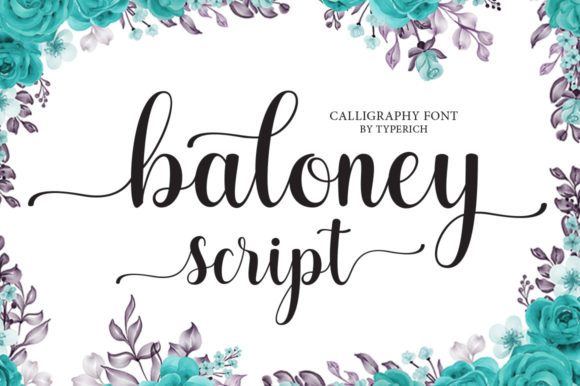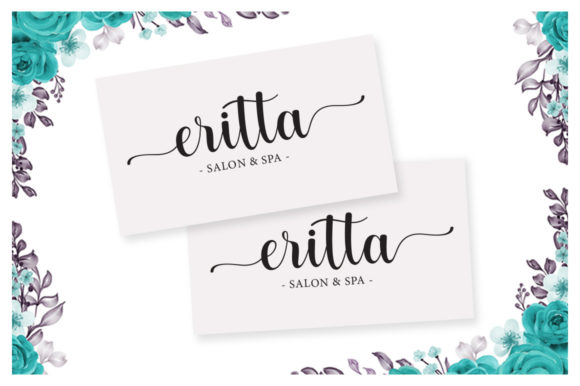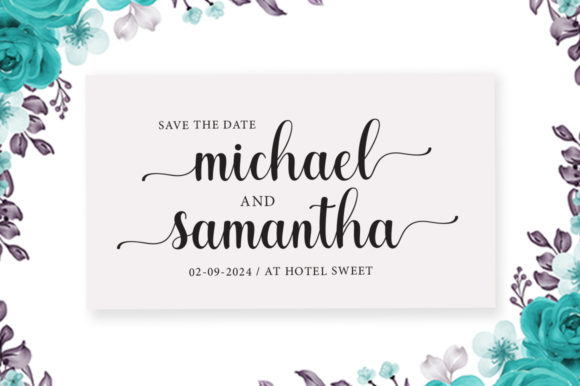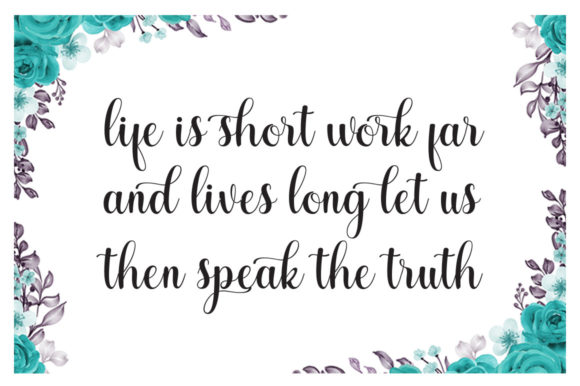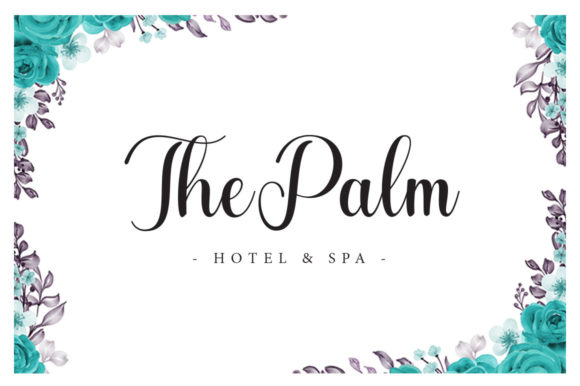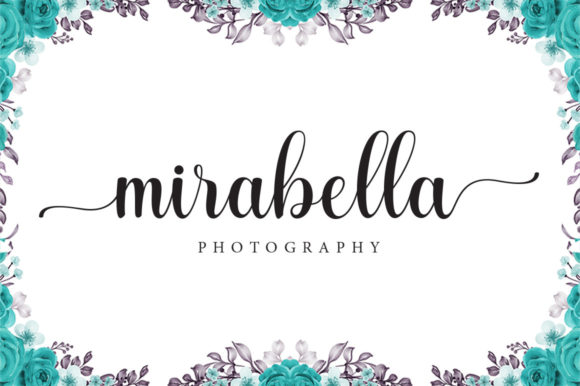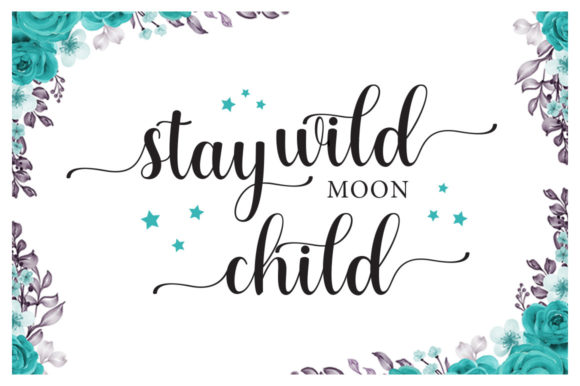
Baloney Script Font
About Baloney Script Font
Baloney Script is a romantic and sweet calligraphy typeface with characters that dance along the baseline. This font is PUA encoded which means you can access all of the amazing glyphs and ligatures with ease!